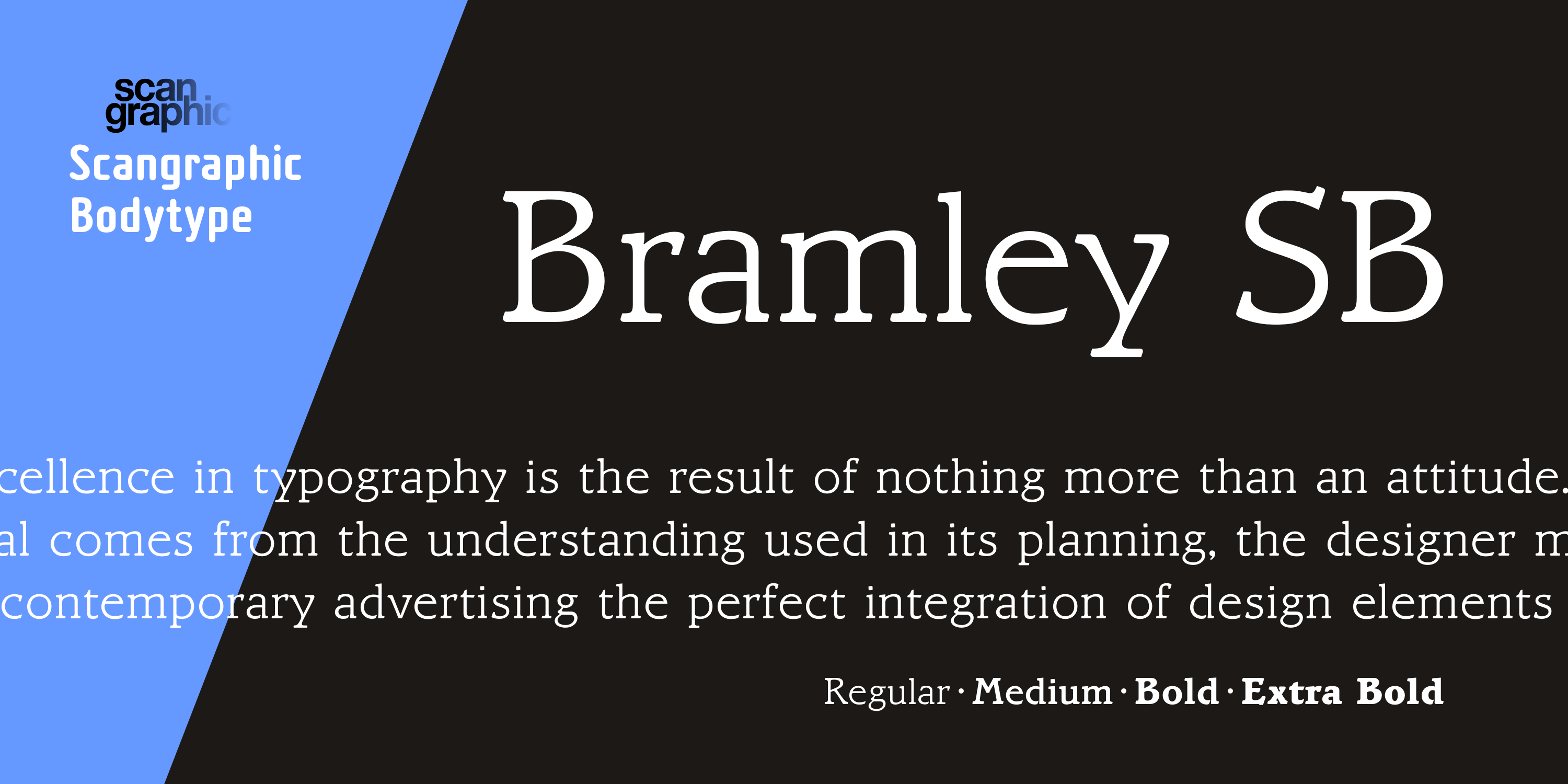
Bramley SB Font is ideal for English countryside estates, traditional British pubs, heritage garden centers, artisan cider breweries, rural tourism agencies, countryside bed and breakfasts, and authentic English farm shops. This charming typeface embodies English countryside elegance and rural British heritage, bringing pastoral authenticity and traditional English character to any design project celebrating countryside living and British agricultural traditions.
What makes Bramley SB Font exciting is its delightful combination of English countryside charm and traditional British elegance that perfectly captures the essence of rural heritage and pastoral sophistication. The font features graceful letterforms with orchard-inspired details and countryside proportions that evoke both the natural beauty of English apple orchards and the timeless appeal of traditional British countryside culture. Its warm character appeals to heritage enthusiasts while maintaining excellent readability for both tourism documentation and rural business applications.
The Bramley SB Font family includes multiple weights with complementary italic variations and English countryside ornamental elements. The character set features rural ligatures, British symbols, countryside alternates, and traditional decorative accents that enhance the font's authentic appeal. Extended character support includes British pound symbols and countryside icons for genuine English heritage and rural tourism applications.
Whether you're designing countryside tourism brands, creating English heritage materials, or developing rural lifestyle content, Bramley SB Font Free Download provides exceptional authenticity and versatility. This charming typeface transforms ordinary text into meaningful countryside experiences that celebrate English rural traditions while establishing trusted brand recognition in competitive heritage tourism and countryside hospitality marketplaces.